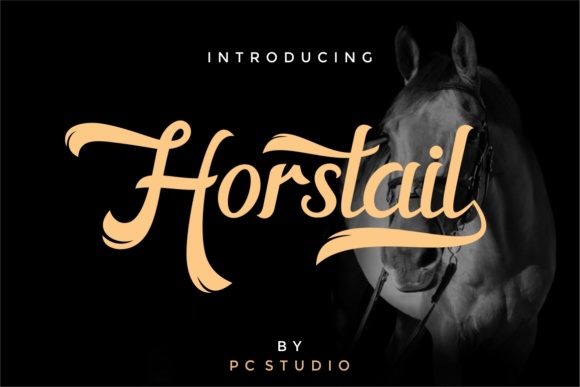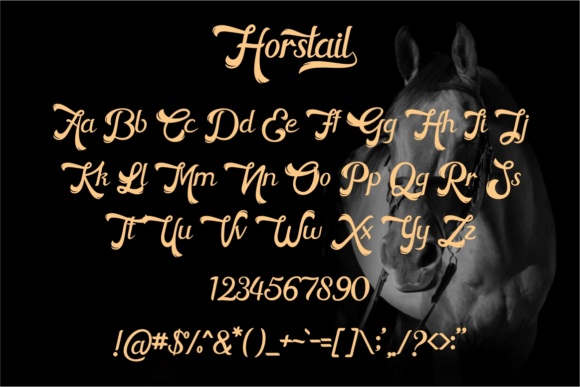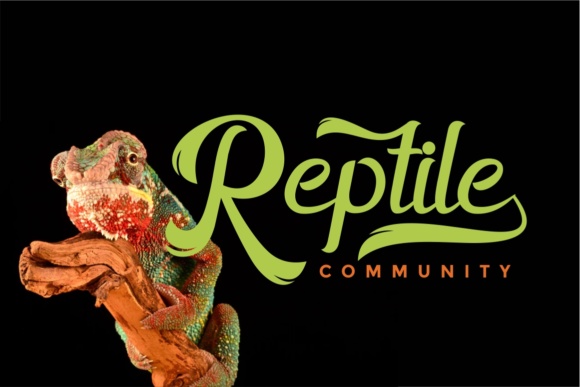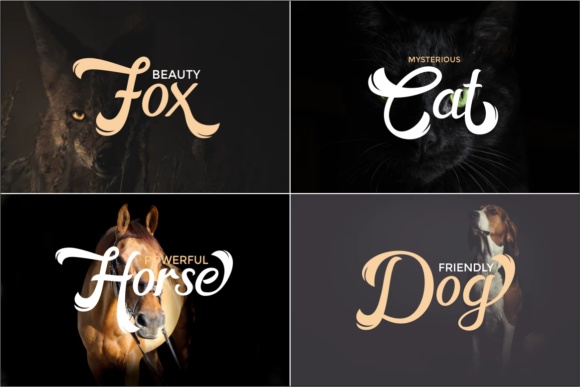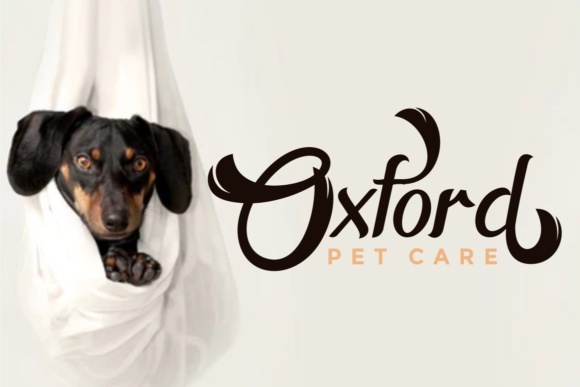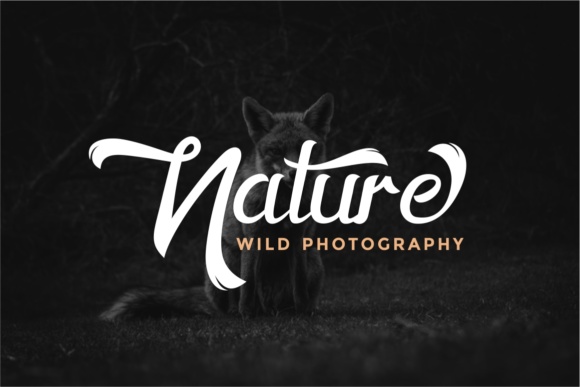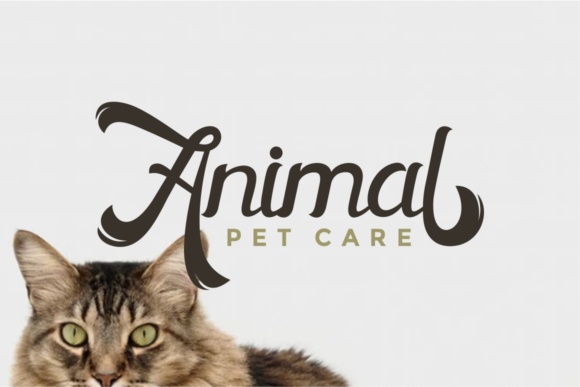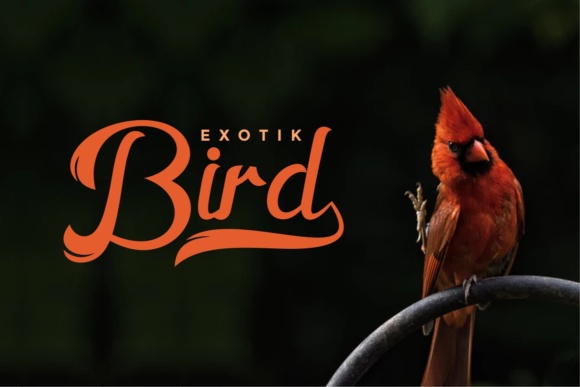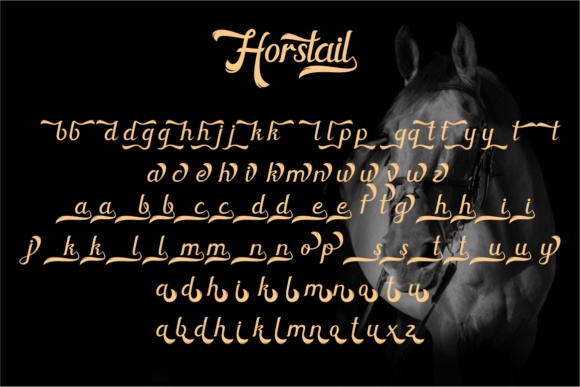
Horstail Font
About Horstail Font
The Horstail is a script typeface with a swash tail like an animal. It’s perfect for animal lovers and suitable for logos, titles, tagline, t-shirts and much more!